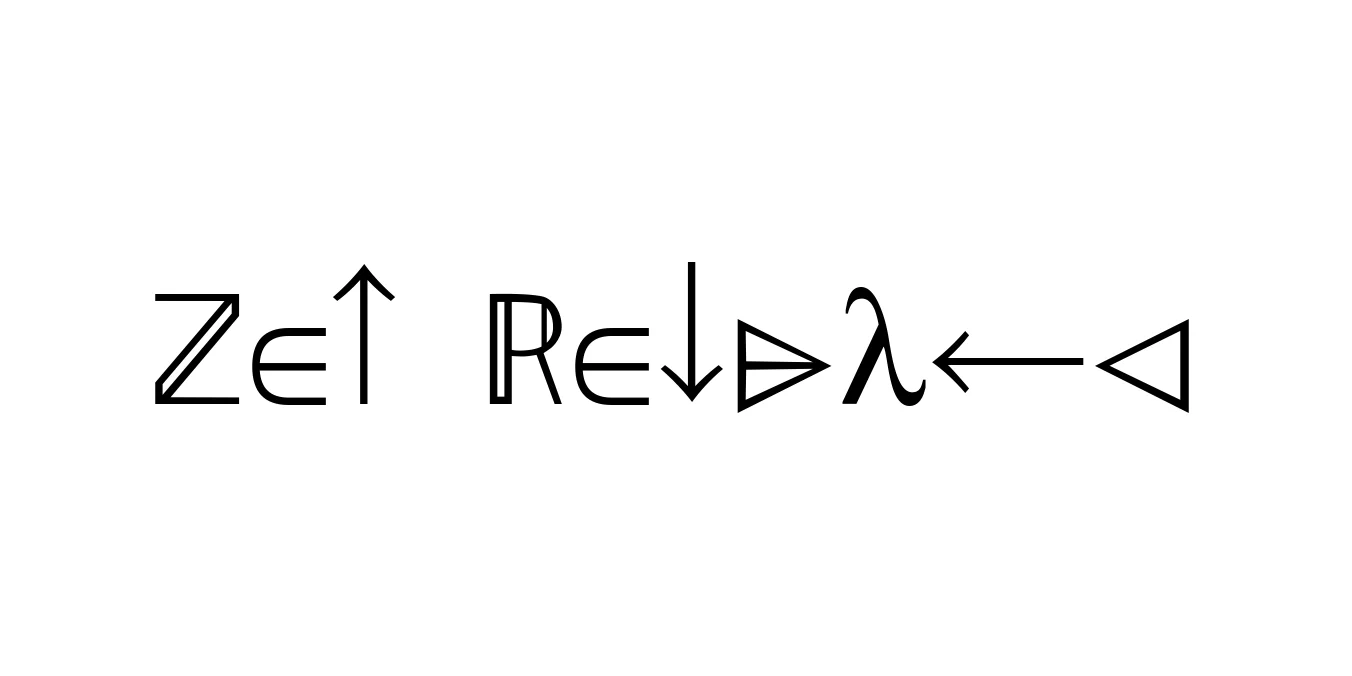
Zed Regular
Designed by Nikola Djurek
Zed Regular is a contemporary sans-serif typeface designed with a focus on geometric precision and functional clarity. It features a high x-height and open apertures, making it exceptionally legible at small sizes, particularly for digital interfaces and technical documentation. Its balanced proportions and clean aesthetic allow it to bridge the gap between humanistic warmth and industrial efficiency.
Developed to meet the demands of modern screen-based environments, the Zed Regular font has evolved into a versatile tool for designers. It is frequently employed in UI/UX design and corporate communications due to its distinctive character shapes. The typeface maintains a professional and neutral tone, ensuring it does not distract from the content it presents while providing a polished look for both digital and print media.
Zed Regular Best Uses
Ideal for body text and navigation menus due to its high readability.
Perfect for mobile apps and dashboards where clarity is essential.
Great for manuals and documentation that require a professional look.
Works well for corporate identities that want a modern, tech-focused vibe.